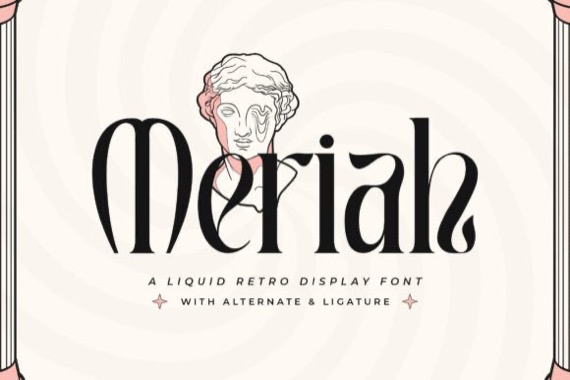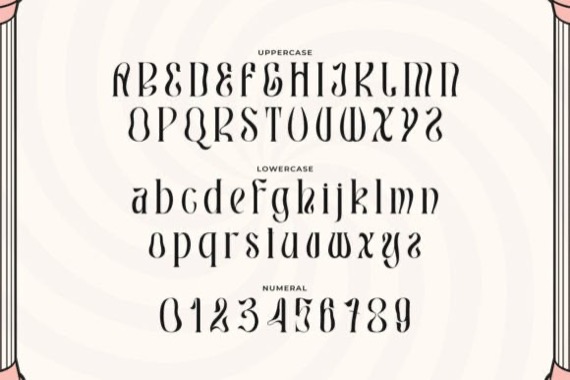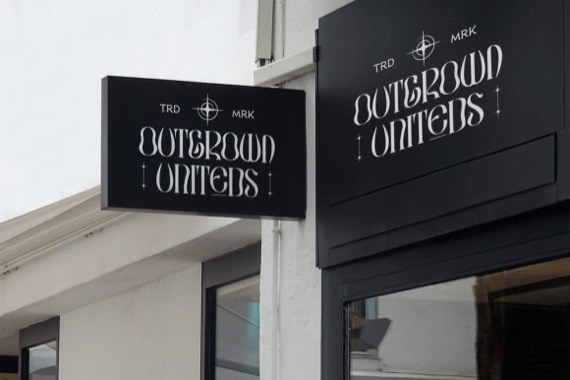
About Meriah Font from TypeFactory, with its fluid and dynamic letterforms, “Meriah” captures the essence of retro design, transporting you to an era of bold colors and playful curves. Each letter drips with nostalgia, making it perfect for creating eye-catching headlines, posters, album covers, and more.
Meriah Display Font
Designer, Publisher: TypeFactory